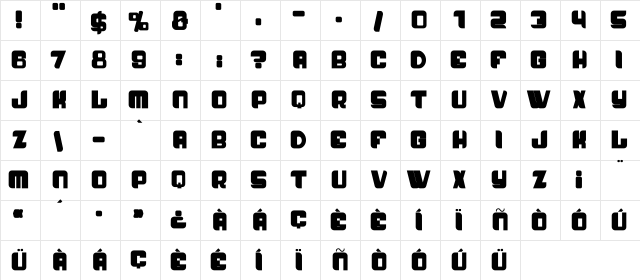
Passeig
Design Context for Passeig Typeface
Passeig offers clean, dependable letterforms without strong stylistic allegiance, making it a practical choice for designers who need flexibility.
Pro Tip: Pair Passeig with a font of contrasting weight or personality to build a more expressive typographic hierarchy.